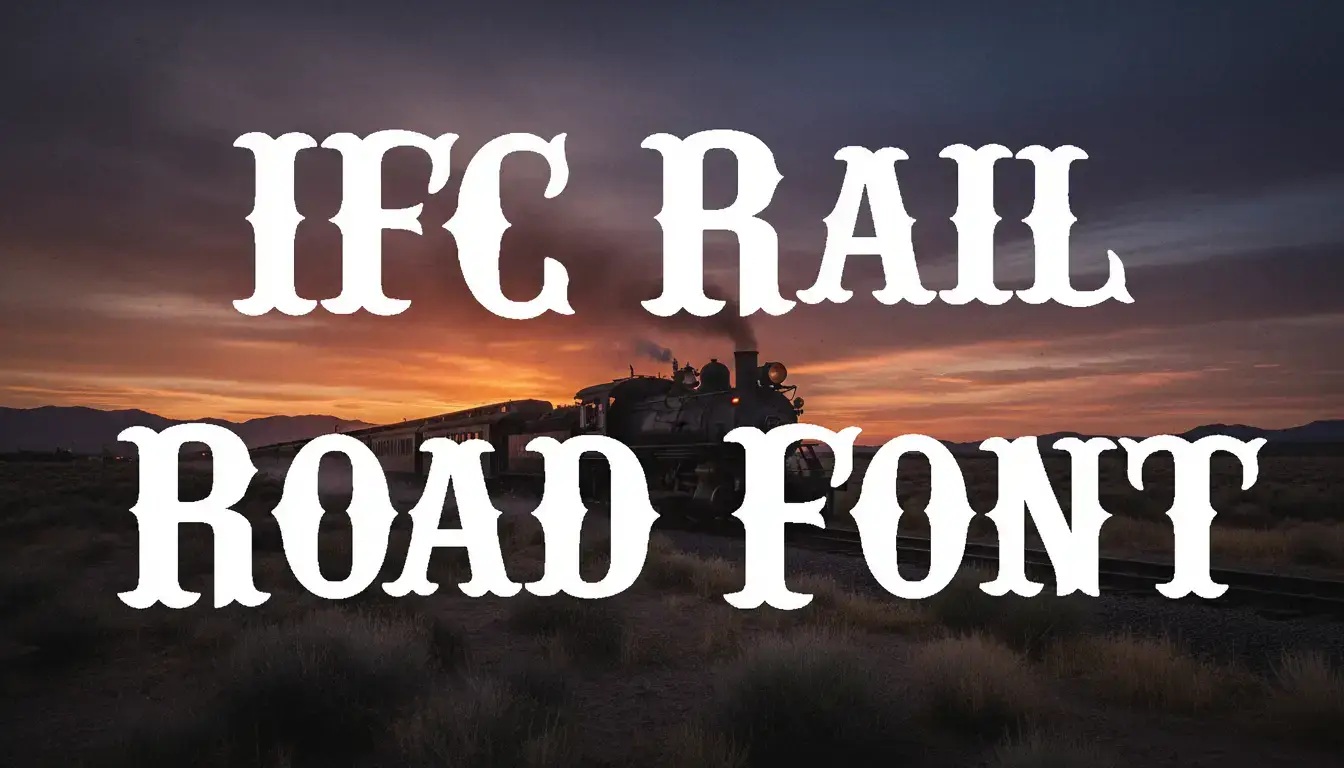
IFC Rail Road Font
IFC Rail Road
IFC Rail Road is a Western font. It has the bold, wood-type look of Wild West wanted posters and saloon signs. It's a free download, and you can try it with your own text in the preview above first.
What You Can Type With IFC Rail Road
You get every letter from A to Z in both cases and all the numbers from 0 to 9, which means IFC Rail Road can handle full sentences, dates and prices. Everyday marks like &, !, ? and @ are there too. There are no accented letters like é or ñ, so it's best kept to English text.
Where IFC Rail Road Works Best
Think of IFC Rail Road for rodeo posters, saloon signs and country music flyers. Try it in brown, rust or cream on a paper texture for the full old-west look.
What fonts pair well with IFC Rail Road?
A sturdy slab serif or a simple serif works well for the smaller text.